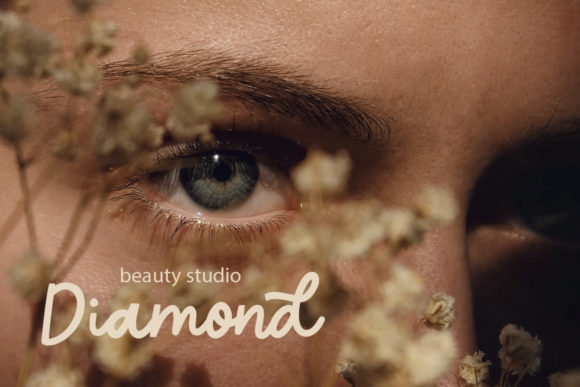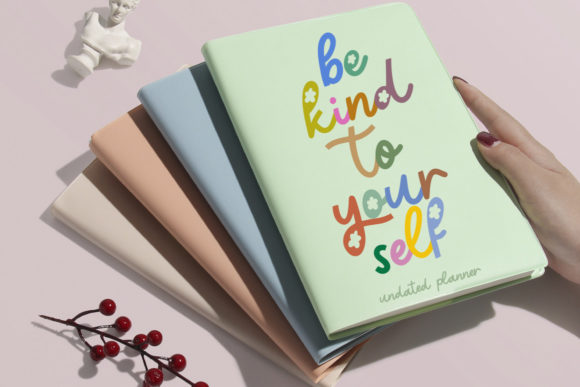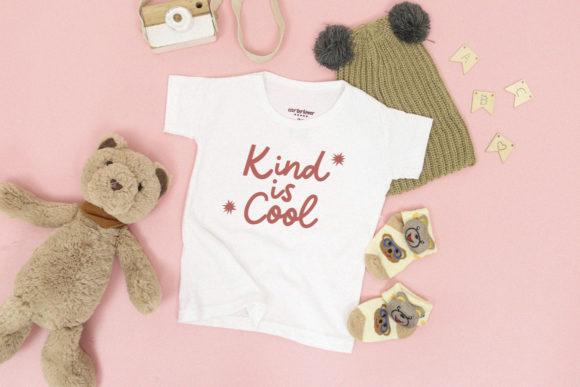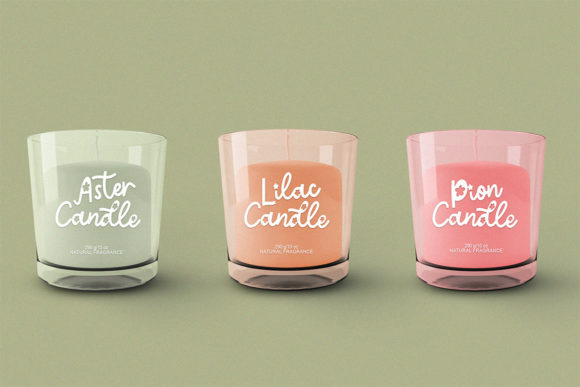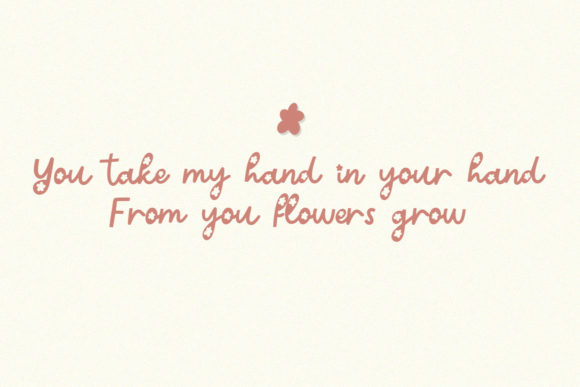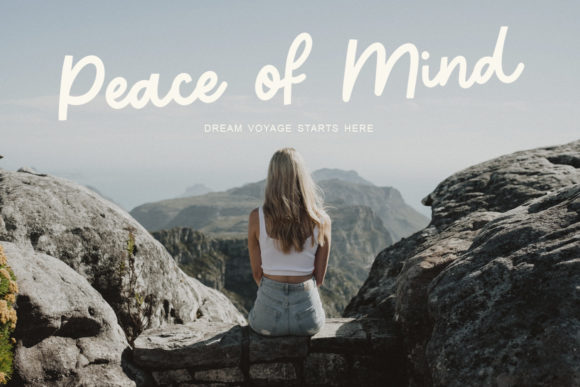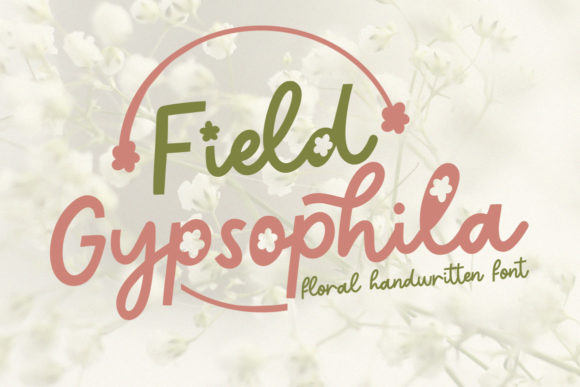
Introducing Field Gypsophila: The Sweet and Delicate Script Font You Need
Are you a designer or crafter looking for a font that can add a touch of elegance and whimsy to your creative projects? Look no further than Field Gypsophila, a beautiful script font that is sure to capture your heart. With its sweet and delicate feel, Field Gypsophila is the perfect choice for a wide range of design applications, from thank you cards and quotes to greeting cards, logos, and business cards.
The Versatility of Field Gypsophila
One of the standout features of Field Gypsophila is its incredible versatility. This font is friendly and approachable, making it suitable for a variety of contexts and design projects. Whether you’re creating a romantic wedding invitation, a heartfelt thank you card, or a bold logo for a new business, Field Gypsophila is sure to make your design stand out.
Its delicate script lines and flowing curves give Field Gypsophila a distinctly artistic feel, making it perfect for designers and crafters who want to add a touch of sophistication and elegance to their work. At the same time, the font’s friendly and approachable feel ensures that it remains accessible and engaging, even for more casual design projects.
Design Ideas with Field Gypsophila
So, what can you create with Field Gypsophila? The possibilities are endless! Here are a few ideas to get you started:
• Thank you cards: Add a personal touch to your thank you cards with Field Gypsophila’s sweet and delicate script.
• Quotes and posters: Use Field Gypsophila to create stunning quote posters that are sure to inspire and delight.
• Greeting cards: From birthday cards to holiday greetings, Field Gypsophila is the perfect choice for any occasion.
• Logos and branding: Add a touch of elegance and sophistication to your logo and branding with Field Gypsophila’s flowing script lines.
• Business cards: Stand out from the crowd with Field Gypsophila’s unique and artistic feel.
Why Choose Field Gypsophila?
So, why should you choose Field Gypsophila for your design projects? Here are just a few reasons:
• Unique and artistic feel: Field Gypsophila’s delicate script lines and flowing curves give it a distinctly artistic feel that will set your designs apart.
• Versatile and adaptable: Whether you’re creating a formal invitation or a casual social media post, Field Gypsophila is sure to fit the bill.
• Elegant and sophisticated: Add a touch of elegance and sophistication to your designs with Field Gypsophila’s sweet and delicate script.
• Easy to read and understand: Despite its artistic feel, Field Gypsophila remains easy to read and understand, making it perfect for a wide range of design applications.
Tips for Using Field Gypsophila
Here are a few tips for getting the most out of Field Gypsophila:
• Experiment with different sizes and colors: Field Gypsophila looks great in a variety of sizes and colors, so don’t be afraid to experiment and find the perfect combination for your design.
• Pair with bold graphics and images: Field Gypsophila’s delicate script lines provide a beautiful contrast to bold graphics and images.
• Use for headlines and titles: Field Gypsophila is perfect for headlines and titles, where its artistic feel can really shine.
• Add a personal touch: Use Field Gypsophila to add a personal touch to your designs, whether you’re creating a handmade card or a professional logo.
In conclusion, Field Gypsophila is a sweet and delicate script font that is sure to capture your heart. With its friendly feel and versatile design, it’s the perfect choice for a wide range of design applications, from thank you cards and quotes to logos and business cards. So why wait? Add Field Gypsophila to your creative toolkit today and see how it can help you create stunning designs that stand out from the crowd!